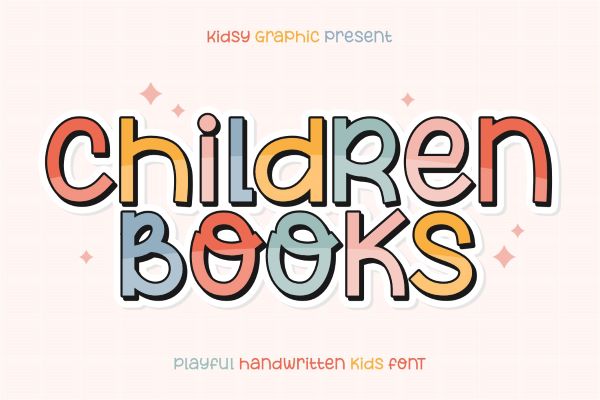
Children Books Font
Children Books font by kidsy graphic is a free bold and fun sans-serif typeface inspired by the spontaneous energy of marker pen hand-lettering — thick, joyful, and radiating the kind of unguarded happiness that makes it an ideal companion for anything aimed at kids or the young at heart. Available free for personal use.